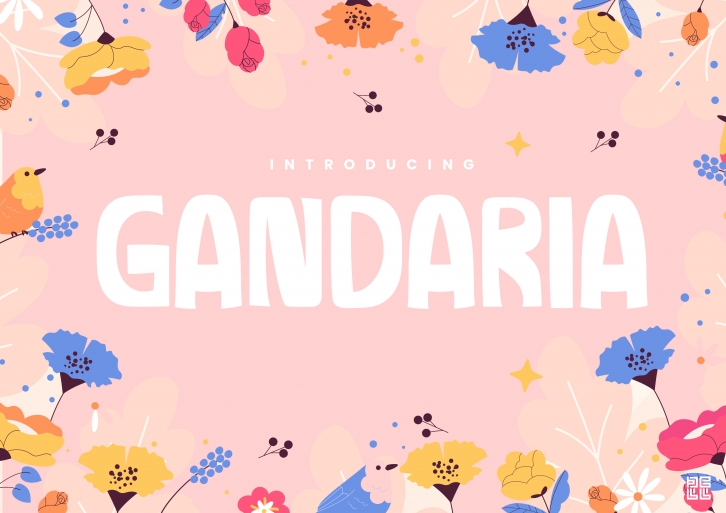
Gandaria is a fresh & modern display font. It works well for a variety of uses, such as invitations, branding material, quotes & posters, letters and more.